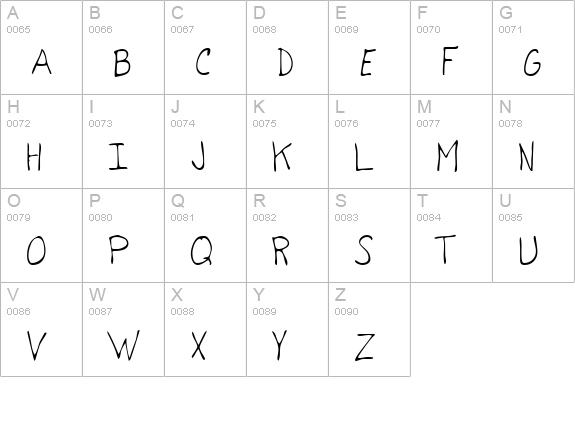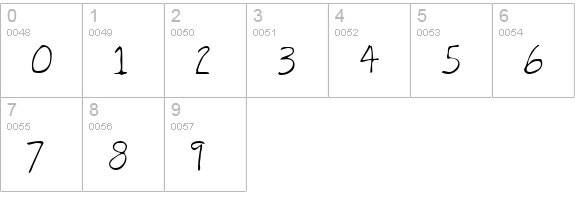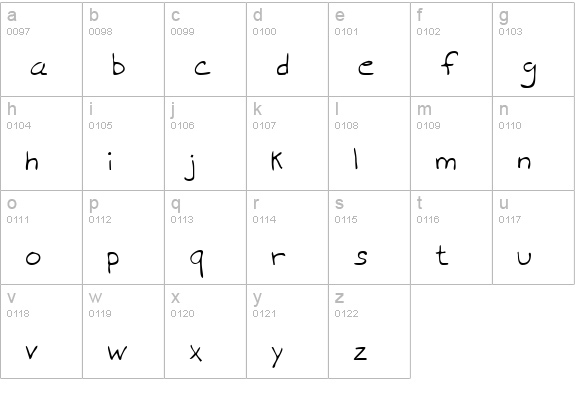
DentonsHand Regular Font Details
DentonsHand Regular is the standard, neutral variant in the DentonsHand typeface family \xE2\x80\x94 well suited to general body text, paragraphs, and standard typographic work.
DentonsHand Regular font is a charming and versatile typeface that exudes a unique handwritten style. With its smooth lines and elegant curves, this font is perfect for adding a personal touch to your projects. Whether you're designing invitations, greeting cards, or branding materials, DentonsHand Regular will bring a warm and inviting feel to your designs. Best of all, DentonsHand Regular font is completely free to download at FontsMarket.com. With just a few clicks, you can enhance your creative projects with this beautiful and expressive typeface. Don't miss out on the opportunity to add DentonsHand Regular to your font collection today!